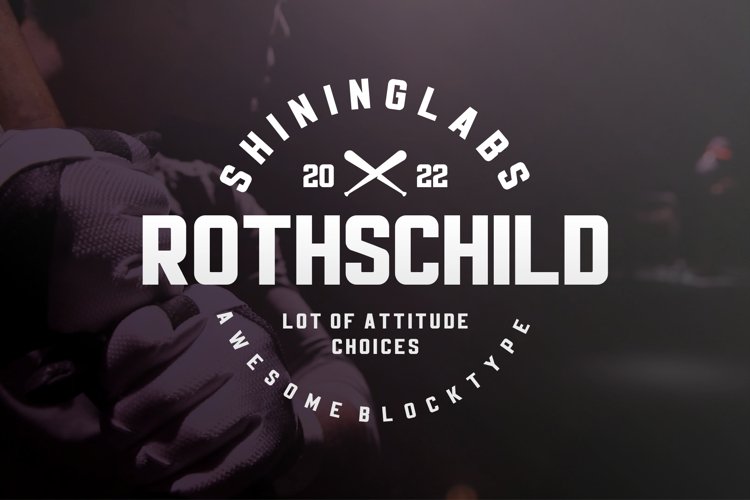
Rothschild is a modern, elegant and futuristics font. Masculine looks, it offers support for all characters for your work. Rothschild is perfectly suited for sophisticated media and web. Great for crafters and graphic artists alike. Compatible with tools such as Photoshop, CorelDRAW and Adobe Illustrator or Silhouete design studio. It's playfulness make it great for creative projects, be it inspirational wall posters or for cummunicating your brand. Take it and enjoy it with your creativity!